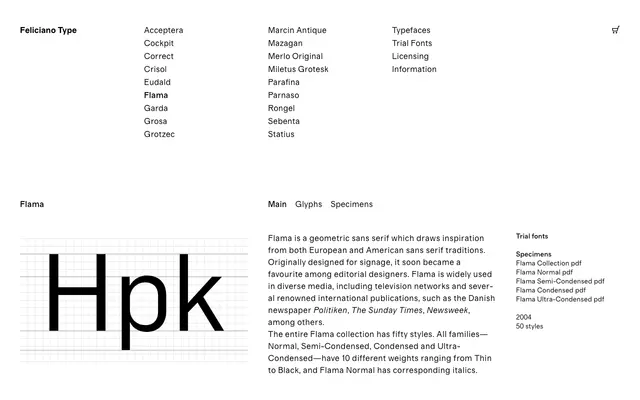
Flama
Feliciano Type · 2004
A geometric sans with roots in both European and American traditions, used widely in broadcast, newspaper and magazine publishing since 2004.
Designed originally for signage, Flama moved quickly into editorial environments and now appears in publications such as Politiken, The Sunday Times and Newsweek, as well as television networks. The family spans 50 styles across four width variants — Normal, Semi-Condensed, Condensed and Ultra-Condensed — each with ten weights from Thin to Black, and the Normal subfamily adds corresponding italics. The breadth of the collection makes it well suited to complex editorial systems where typographic hierarchy needs to work across print and screen.
Described explicitly as a geometric sans serif drawing from both European and American traditions, with a clean, structured character suited to signage and editorial use.